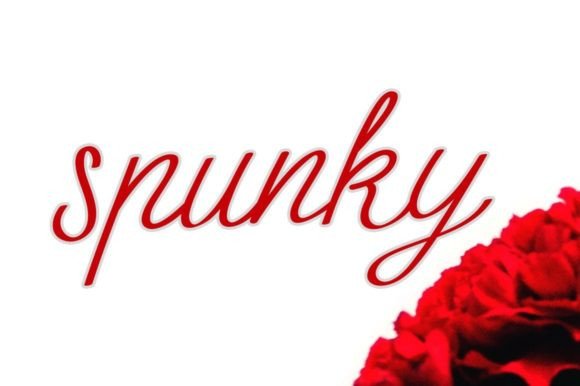
Unleash the Enchantment: Introducing Spunky Font, a Handwritten Masterpiece
In a world of digital artistry, fonts hold the power to transform words into captivating expressions, evoking emotions and painting vivid pictures. Among the myriad of fonts, Spunky emerges as a true gem, a handwritten wonder that will ignite your creativity and captivate your audience.
Step into a realm of visual allure with Spunky, a meticulously crafted script font born from the passion of Rafly Studio. Its graceful curves and enchanting strokes dance across the page, leaving a trail of elegance and charm. Whether you're crafting heartfelt greeting cards, designing eye-catching headlines, or creating stunning logos, Spunky is your perfect companion, ready to elevate your projects to new heights of visual delight.
Indulge in the versatility of Spunky, a font that adapts seamlessly to a symphony of creative endeavors. Its wide spectrum of applications is a testament to its boundless potential. From the delicate strokes of wedding invitations to the bold declarations of posters, Spunky weaves its magic, adding a touch of romance and sophistication to every design.
Experience the allure of Spunky, a font that speaks to the heart and stirs the imagination. Its whimsical nature dances across the screen, inviting your audience into a world of enchantment. With Spunky as your creative ally, your designs will blossom into captivating masterpieces, leaving a lasting impression on all who behold them.
Don't settle for ordinary fonts that blend into the background. Embrace the extraordinary with Spunky, a font that commands attention and ignites the senses. Its unique charm and captivating presence will transform your designs into works of art, leaving your audience breathless with each stroke of genius.